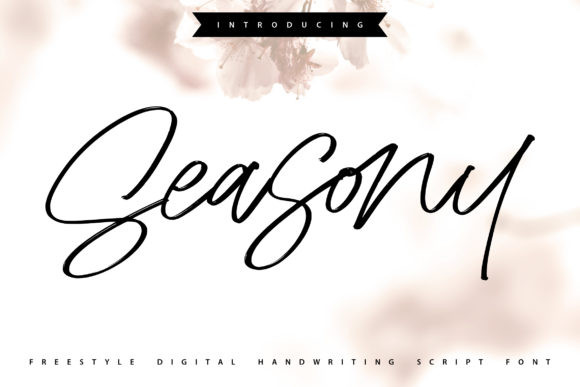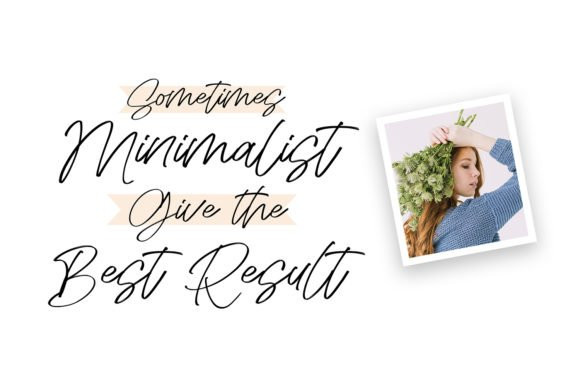
Seasony Font
Seasony is a lovely and timeless handwritten font. It is the best choice for creating eye catching logos, branding and quotes. Every letter has a unique and beautiful touch, which will make your design come alive!